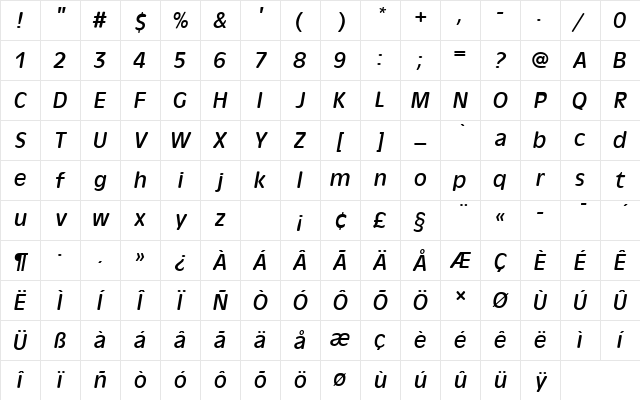
AntiqueOliTRegItaRo1 Regular Free Font
AntiqueOliTRegItaRo1 Regular
Design Context for AntiqueOliTRegItaRo1
AntiqueOliTRegItaRo1 wears its vintage influences proudly, with letterforms that recall mid-century signage, classic packaging, and nostalgia-driven design.
Font Pairing: Combine AntiqueOliTRegItaRo1 with a simple slab or neutral sans - period-accurate companions reinforce the vintage feel without competing for attention.
Pro Tip: Lean into AntiqueOliTRegItaRo1's period character by pairing it with aged paper textures, muted colour palettes, and vintage illustration styles.